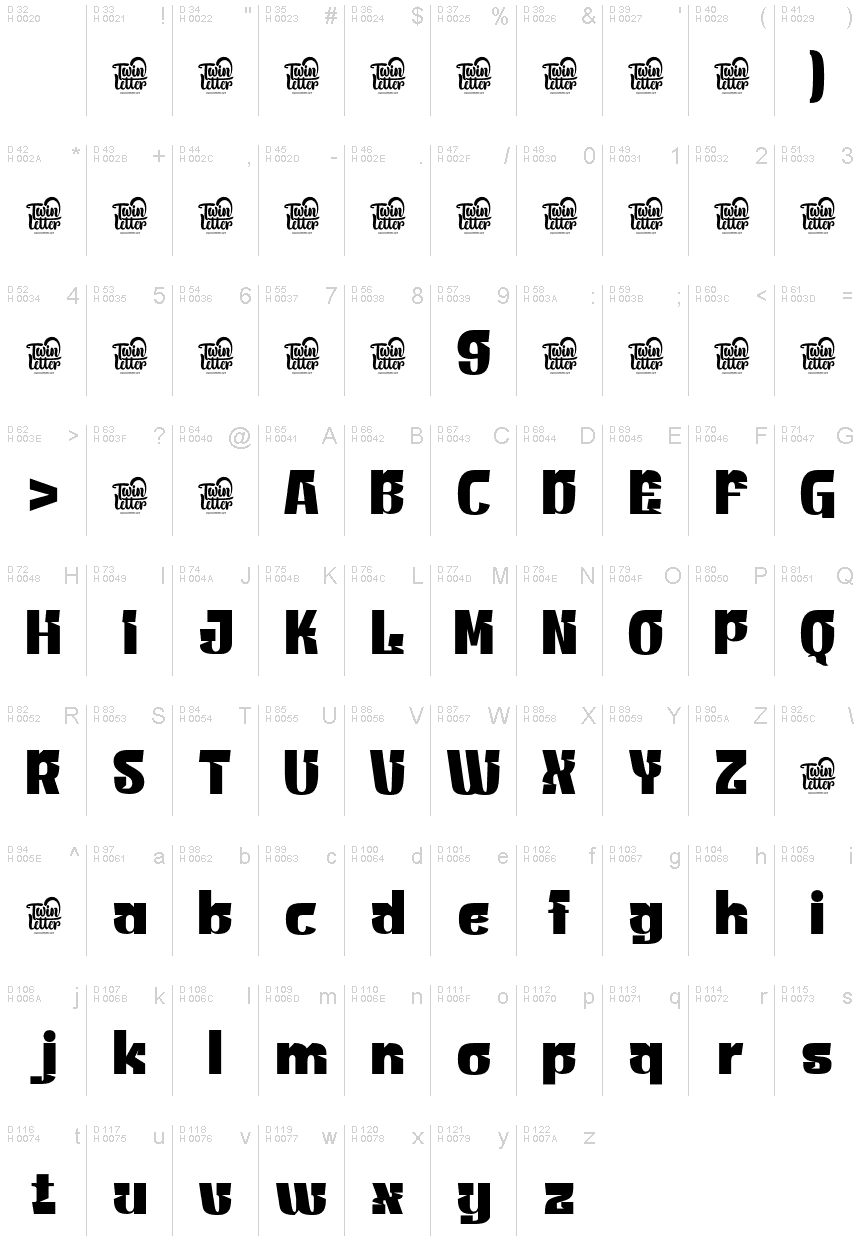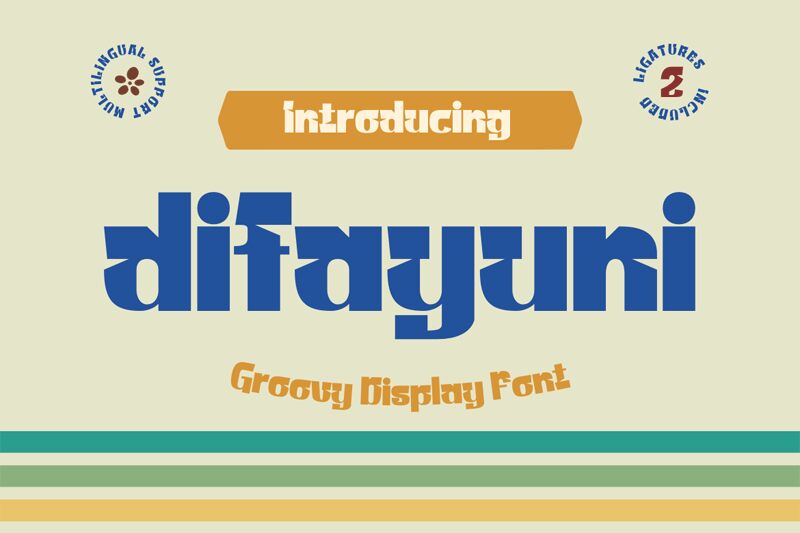
difayuni-Regular
Discover the captivating Difayuni font, designed by Twinletter, that is ready to elevate your creative projects to new heights. This display font boasts a groovy style and bold weight, making it perfect for a wide range of design needs. Whether you're working on branding, product packaging, or editorial layouts, Difayuni's geometric shapes and precision will effortlessly add a touch of elegance and sophistication to your work.
Its simplicity makes it easy to read, ensuring that your audience can engage with your content effortlessly. With its contemporary aesthetic and versatility, Difayuni is the go-to choice for designers looking to make a statement. So don't delay any longer - unlock the potential of Difayuni in your designs today!